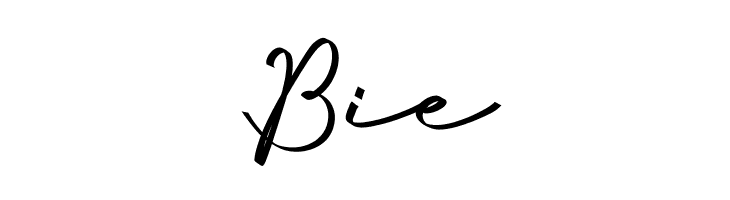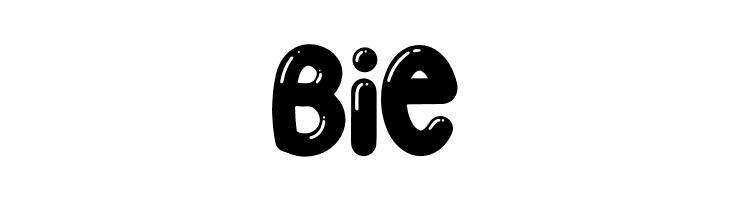
A bold, playful, hand-drawn font with a casual and informal style.
A bold, flowing script font with elegant curves and dynamic movement.
A bold, high-contrast serif font with a classic and adventurous style.
A bold, brush-style font with an adventurous and expressive character.
A playful and dynamic font with bold, flowing characters and a whimsical style.
A bold, dynamic script font with elegant, flowing cursive letterforms.
A graceful monoline script font with a handwritten style.
A bold, decorative font with a futuristic, circuit-inspired design.
A sophisticated, elegant handwritten font with fluid, continuous strokes.
A bold, decorative font with a futuristic, tech-inspired design.
A bold, flowing script font with elegant curves and connected strokes.
A bold, elegant script font with flowing, connected characters.
A bold, modern font with sharp, angular lines and a unique flair.
A lively and expressive handwritten font with dynamic strokes and a playful style.
An elegant script font with flowing, interconnected letters and ornate uppercase characters.
A bold, rounded, and playful italic font with a modern aesthetic.
A bold, rounded font with a strong and friendly appearance.
A fragmented, distressed font with a bold and chaotic design.
A bold, fragmented font with a chaotic and edgy style.
A bold, expressive script font with flowing, cursive letterforms.
A bold, elegant script font with interconnected characters and ornate flourishes.
A futuristic, geometric font with bold, interconnected lines and angular shapes.
A futuristic, geometric font with bold, angular shapes.
An intricate and decorative script font with flowing, elaborate designs.
A bold, futuristic font with geometric shapes and sharp angles.
A bold, futuristic font with sharp angles and a dynamic slant.